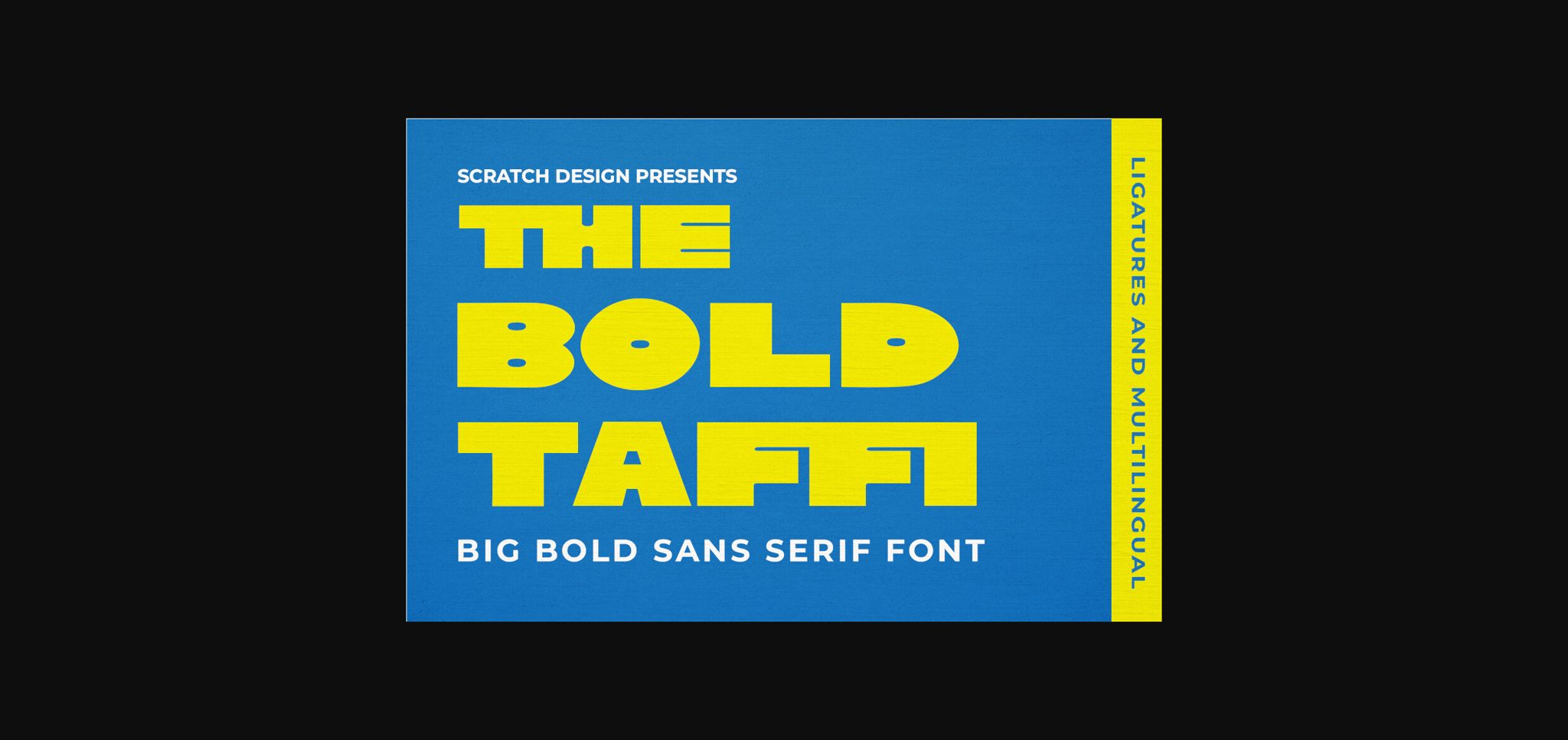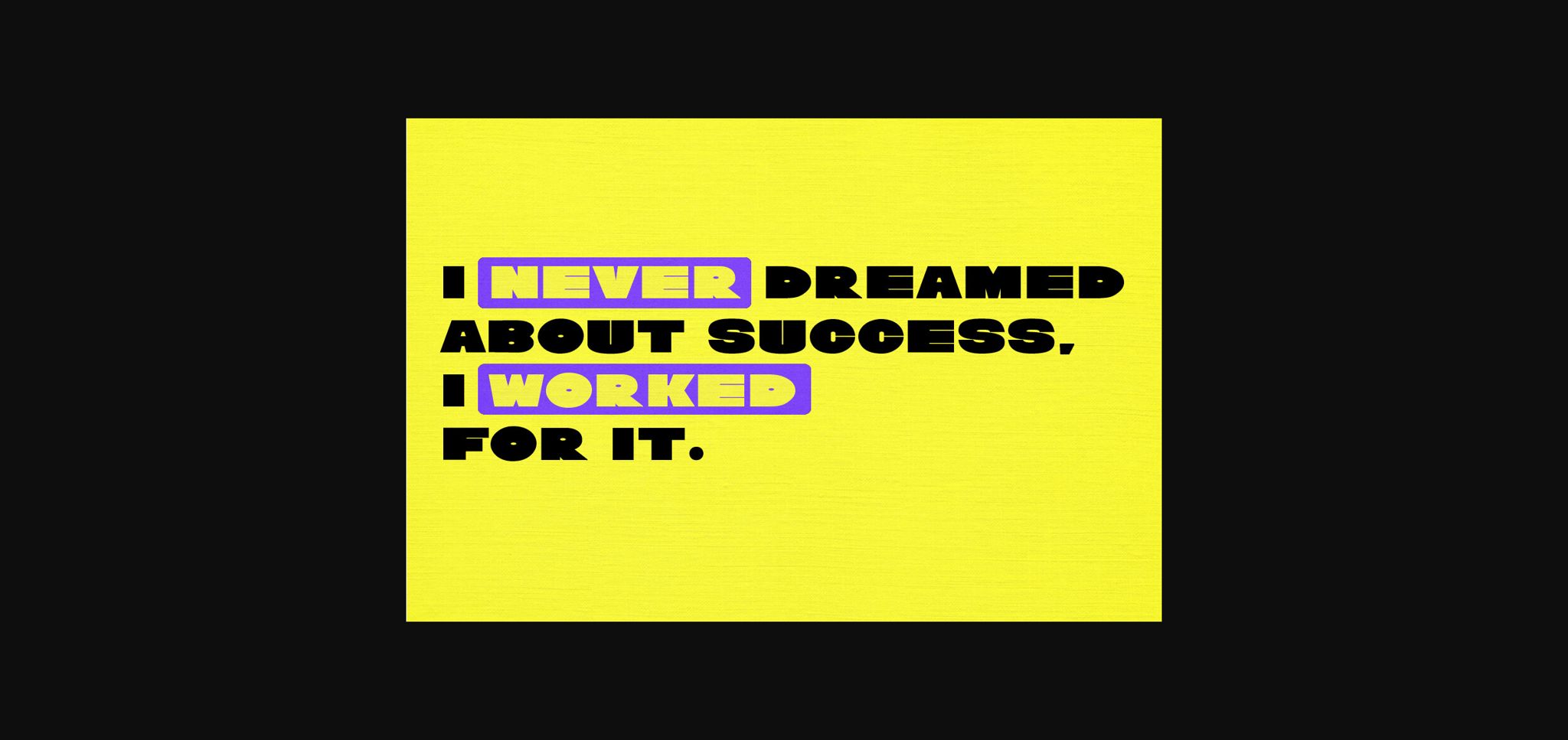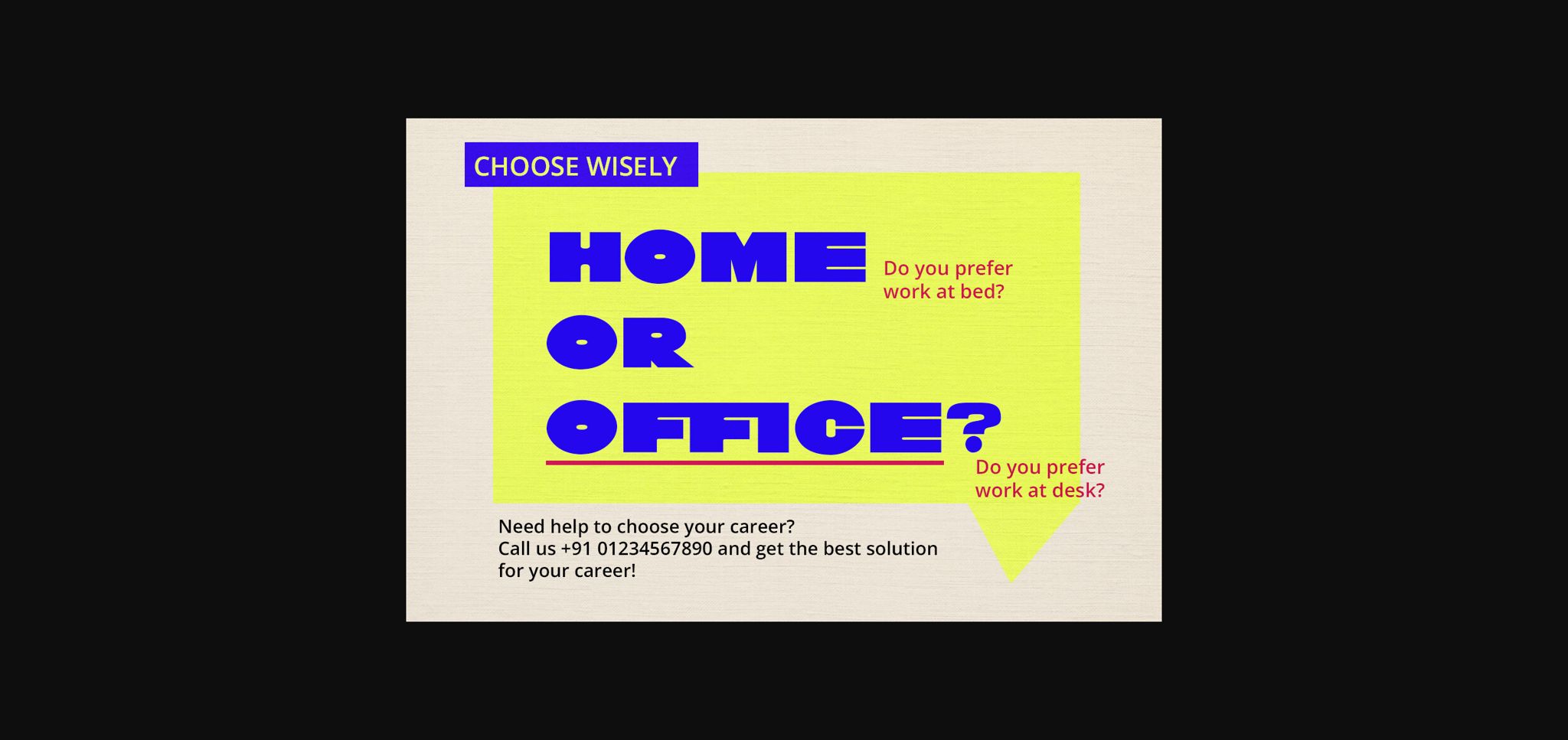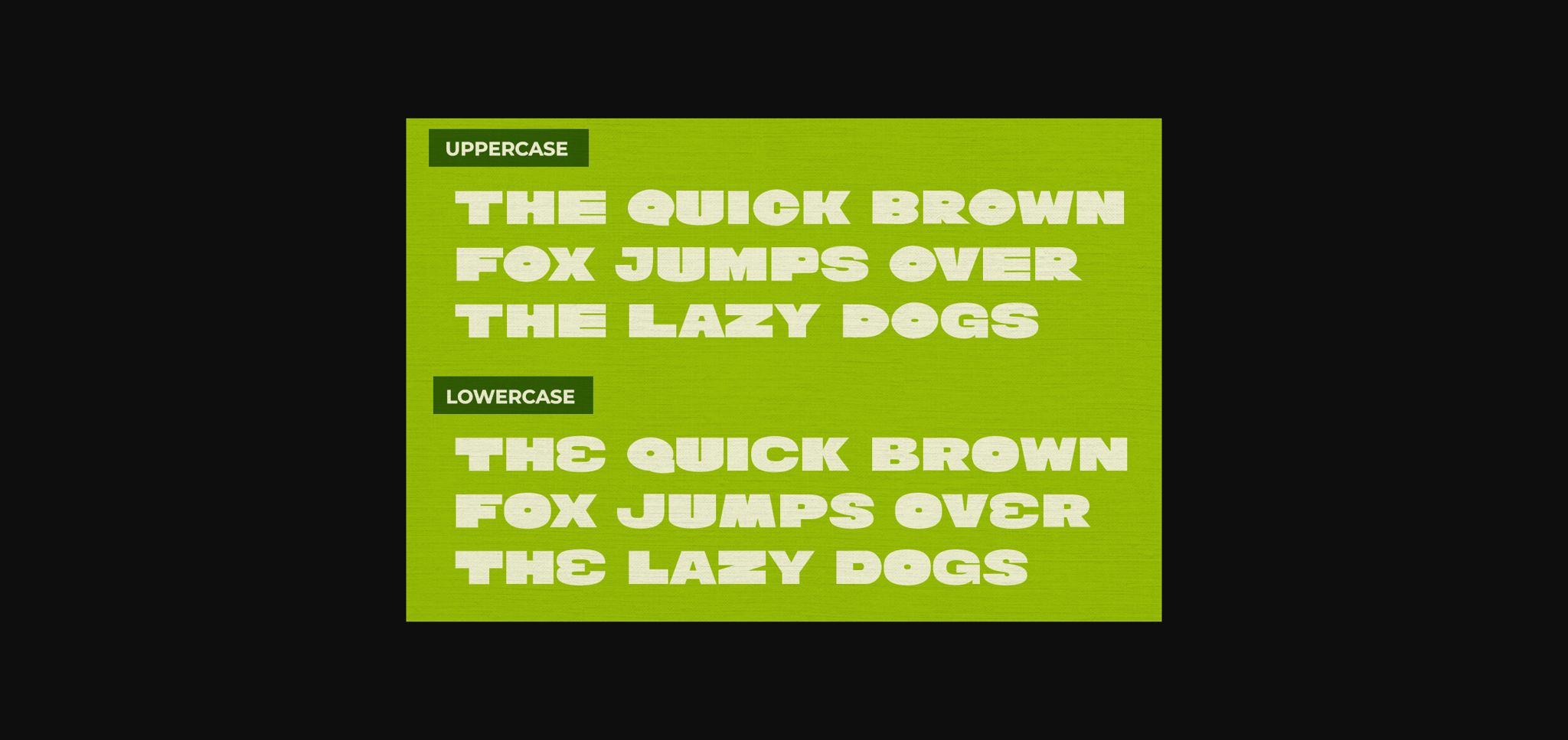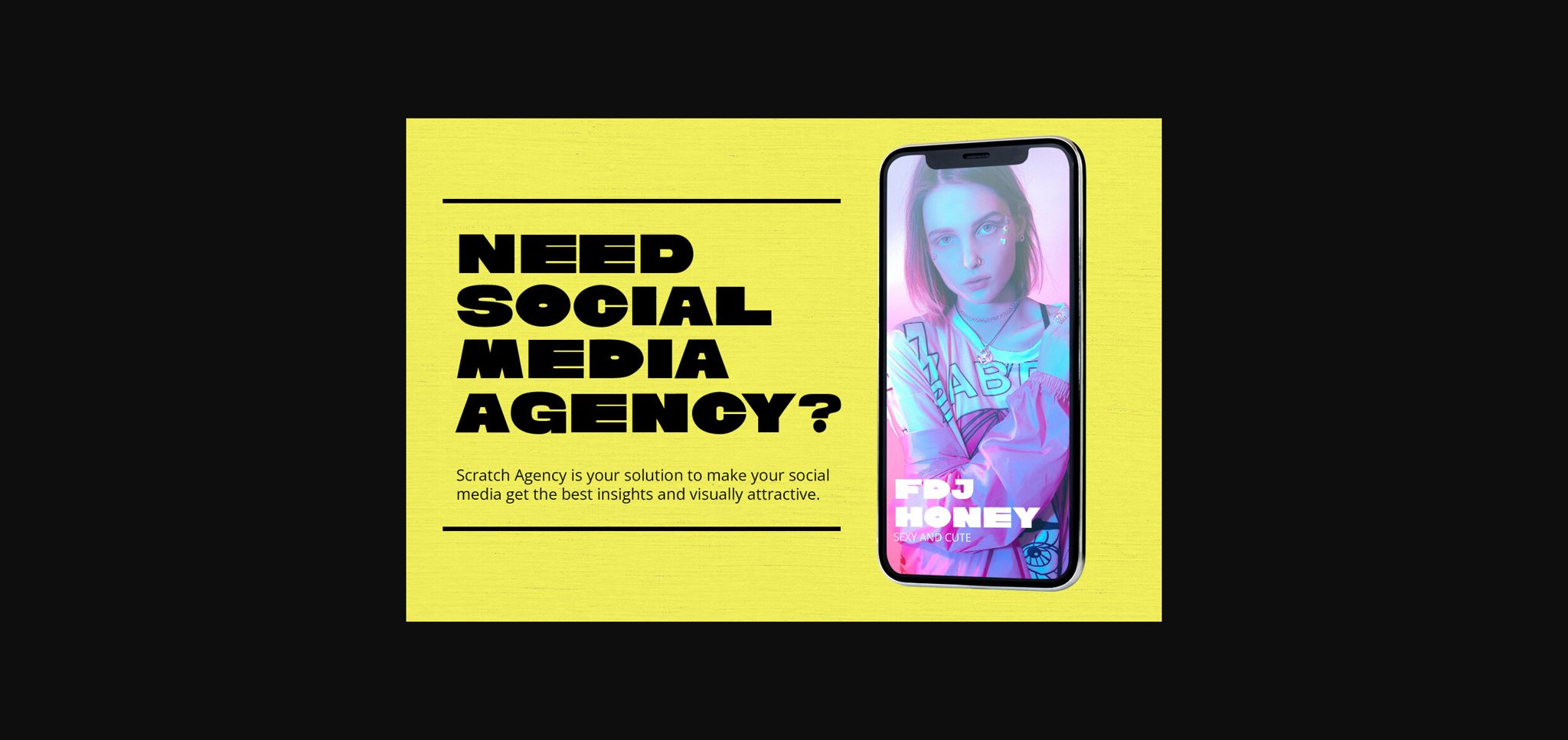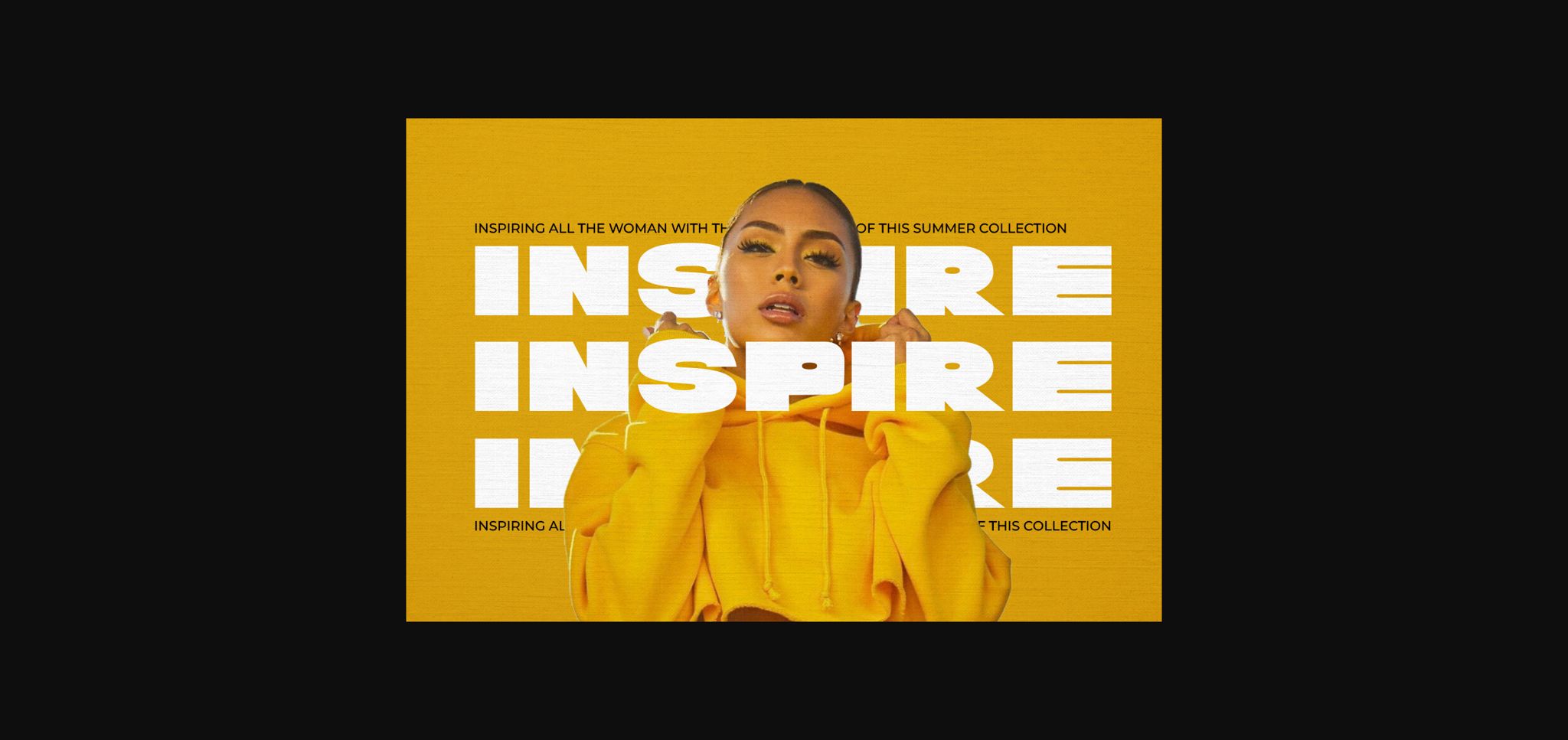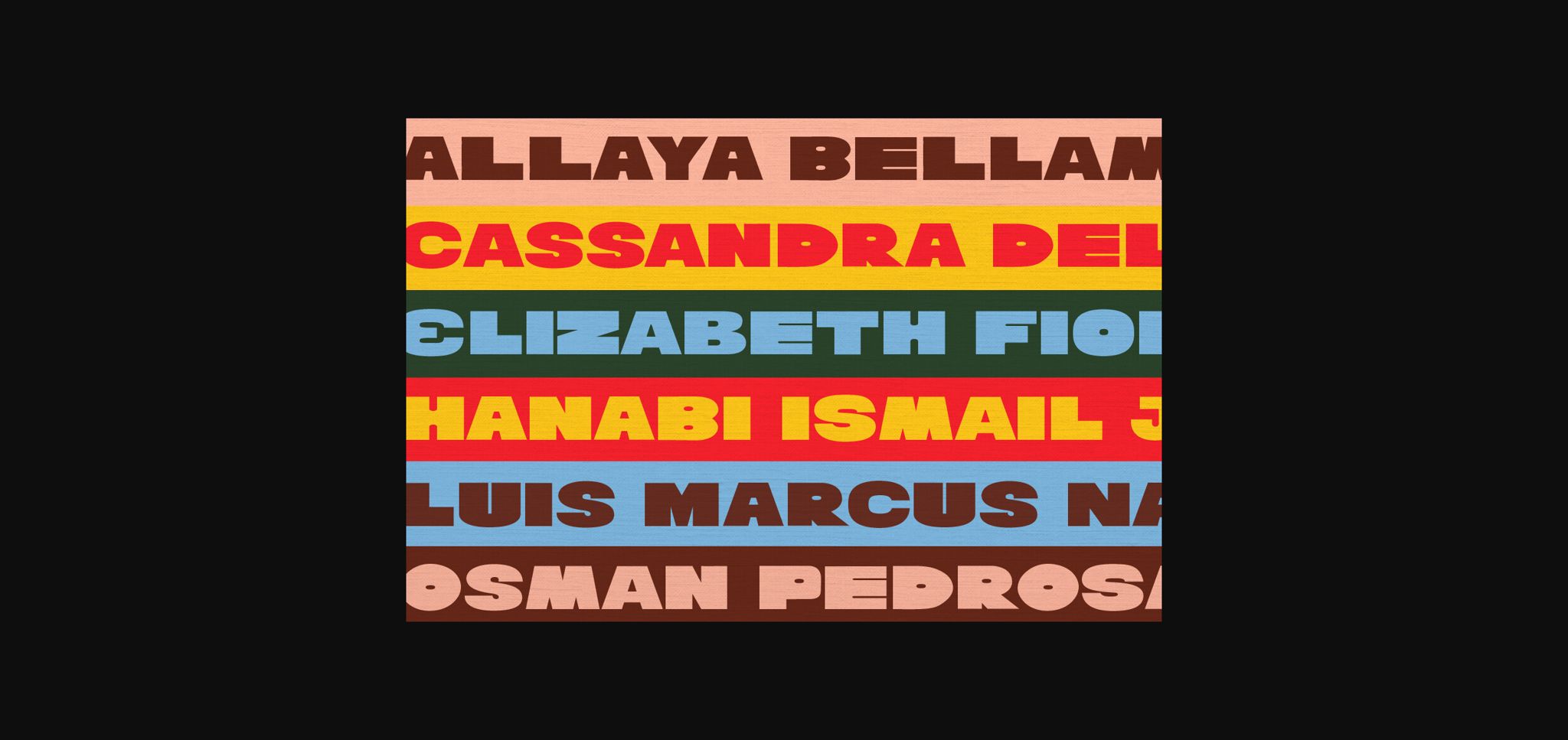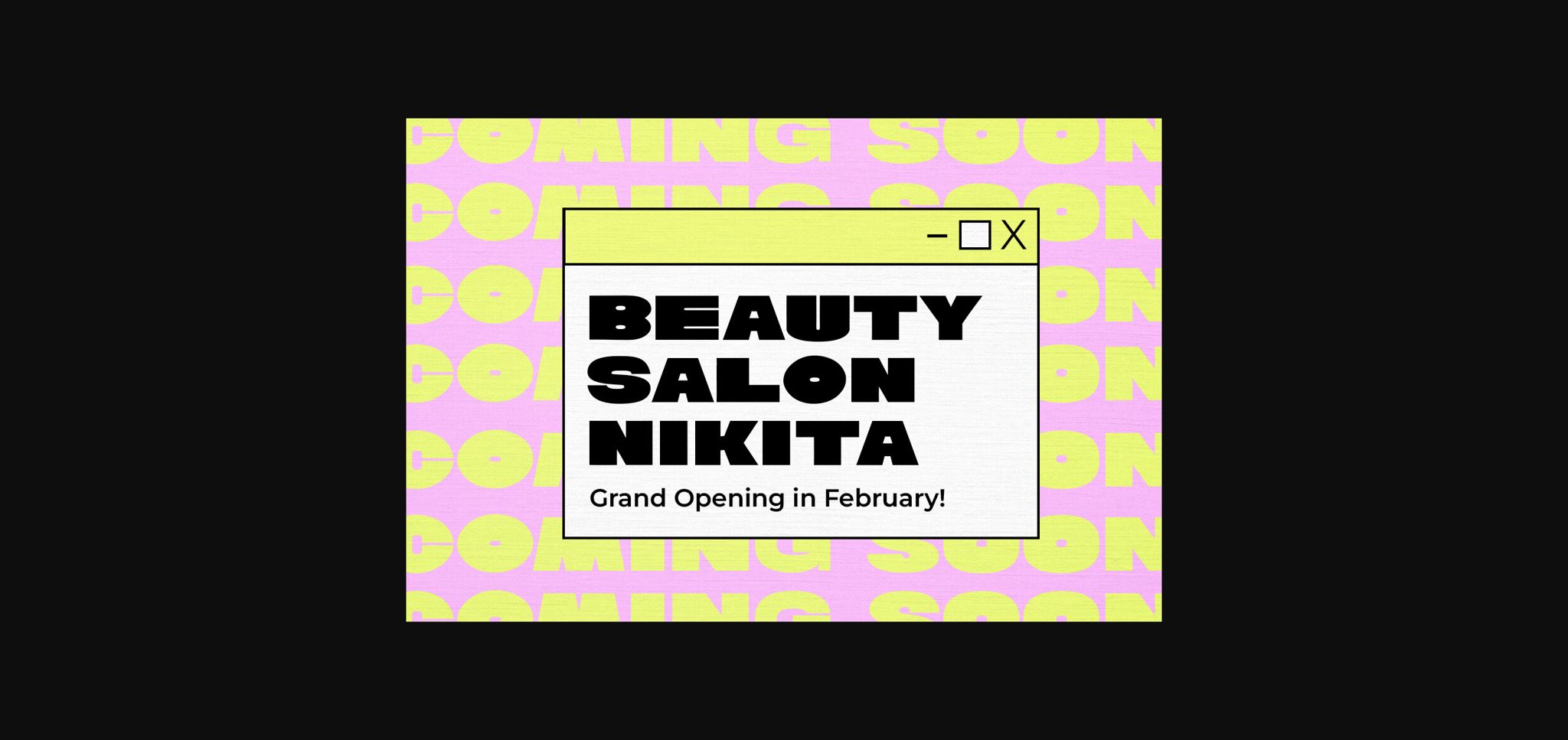
The Bold Taffi Font
About The Bold Taffi Font
The Bold Taffi is a bold, big, huge, geometric sans-serif with a modern style. This font is eye-catching custom-made and still has a fun and retro style. This font is perfect for headlines, logos, brandings, packaging, posters, labels, and other designs that need a high-fashion font.